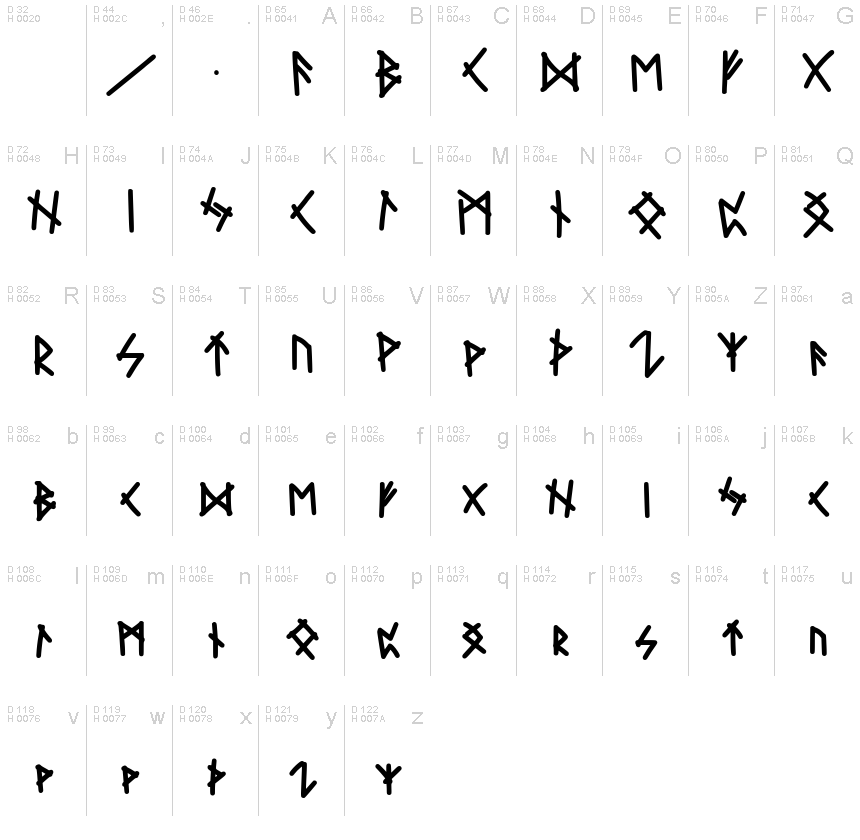
Rune23571 by Kolega 23571 is a captivating dingbat font that exudes an air of mysticism and ancient allure. Inspired by the enigmatic symbols of runic alphabets, this font weaves a tapestry of intricate characters that evoke a sense of timeless wisdom and primal arcane power. With its sharp, angular forms and a bold, unapologetic aesthetic, Rune23571 commands attention, inviting the viewer to decipher its hidden meanings and uncover the stories it holds within its strokes.
The versatility of Rune23571 makes it an exceptional choice for a wide range of design applications. Its distinctive visual language lends itself seamlessly to branding and identity projects, where it can convey a sense of heritage, authenticity, and a connection to the primordial. Equally captivating in editorial layouts, Rune23571 can elevate the atmosphere of content exploring themes of mythology, fantasy, or the occult. Designers seeking to create a strong, impactful visual statement will find Rune23571 to be a compelling and versatile addition to their typographic arsenal.
Rune23571